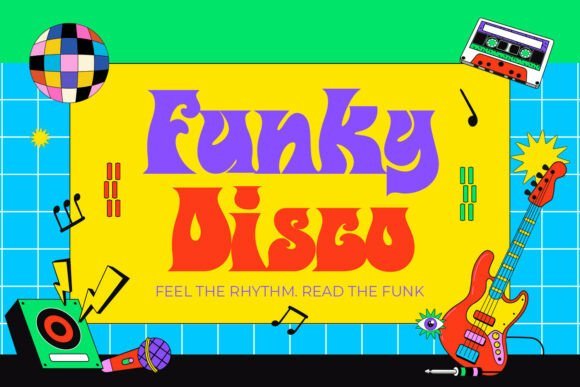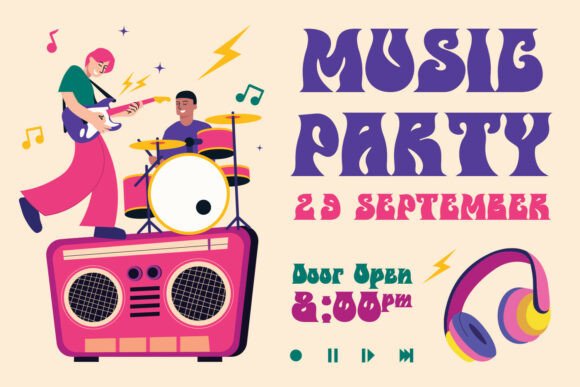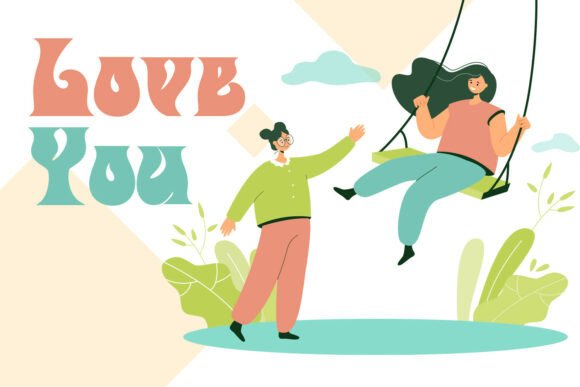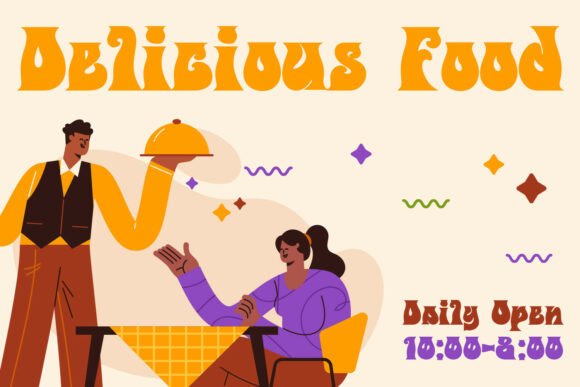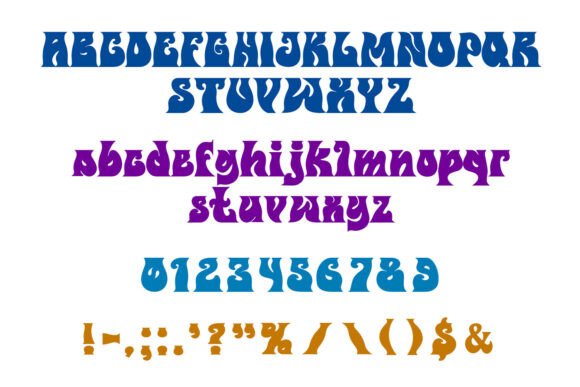
Get Ready to Groove: The Funky Disco Font is Here!
You know that feeling when you stumble upon a vintage vinyl record or a retro-themed boutique, and you’re instantly transported to a bygone era of funk, disco, and psychedelic vibes? That’s exactly what the Funky Disco Font aims to capture – the essence of the 1960s and 1970s in a bold, retro-inspired display font.
Designed with smooth, flowing lines and unique end strokes, the Funky Disco Font adds personality and rhythm to every word. Perfect for posters, album covers, branding, t-shirts, packaging, event flyers, and more, this font brings a vintage flair that’s hard to resist. Whether you’re designing for music festivals, fashion labels, or creative branding, the Funky Disco Font is a valuable addition to any designer’s toolkit, offering a unique way to capture the soul of disco, funk, and hippie culture in every glyph.
Funky Disco Font Key Features
- Size: The font family includes 6 styles ranging from Thin to Black, each with 4 weights (Regular, Italic, Bold, and Bold Italic), offering flexibility for different design applications.
- Unique Characteristics: The font’s distinctive funk-inspired design features bold, colorful, and playful elements that evoke the spirit of the 1970s disco era.
- Font Metrics: The font’s x-height, cap height, and baseline are carefully designed to ensure readability and consistency across different styles and sizes.
Funky Disco Font Review
Overall, I think the Funky Disco Font is a fun and energetic addition to any design project. It’s perfect for those looking to add a touch of nostalgia and retro flair.
- Unique and playful aesthetic that’s sure to stand out
- Well-suited for headings, titles, and other display text
- Highly customizable, with a range of font sizes and colors
- Works well in digital and print applications
- Lack of legibility at smaller font sizes
- Not suitable for body text or large blocks of text
- Might be overwhelming in certain color schemes
- Not as versatile as some other font options
In conclusion, the Funky Disco Font is a great choice for designers looking to add a funky twist to their projects. While it may not be suitable for all applications, it’s a great option for those looking to make a statement. With a little creativity and restraint, this font can add a lot of visual interest to a design.
Funky Disco Font: A Practical Application Guide
The Funky Disco Font is perfect for creating eye-catching graphics, posters, and social media posts. Some common use cases include:
- Creating retro-themed designs.
- Adding a touch of fun to your branding materials.
- Designing party invitations and flyers.
Remember to experiment with different font sizes, colors, and styles to get the most out of the Funky Disco Font.
Alternatives to Funky Disco Font
Great Vibes is a modern, elegant script font that can evoke a sense of fun and playfulness. It’s suitable for headings, titles, and short paragraphs where a touch of whimsy is needed. Compared to Funky Disco Font, Great Vibes is more refined and less over-the-top, making it a great choice for designers who want to add a hint of fun without going overboard.
2. Dancing Script
Dancing Script is a flowing, cursive font that’s perfect for creating a sense of movement and energy. It’s ideal for headings, titles, and short paragraphs where a touch of sophistication is needed. Compared to Funky Disco Font, Dancing Script is more elegant and refined, making it a great choice for designers who want to add a sense of glamour and sophistication.
Carolyna Pro is a stylish, modern script font that’s perfect for creating a sense of luxury and sophistication. It’s suitable for headings, titles, and short paragraphs where a touch of glamour is needed. Compared to Funky Disco Font, Carolyna Pro is more refined and less playful, making it a great choice for designers who want to add a sense of elegance and sophistication.